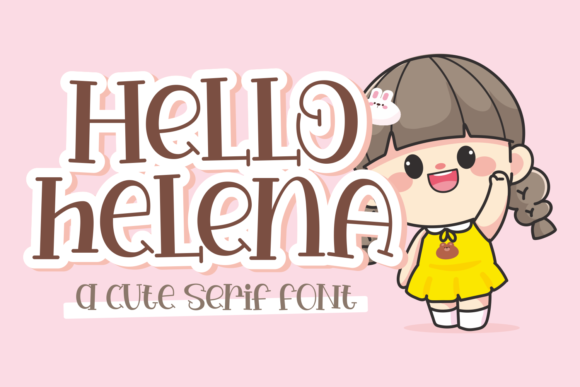
Welcome to the world of Hello Helena, a remarkable serif font crafted by shineink.designlab. It's time to wave goodbye to ordinary fonts and embrace a playful, fun-loving typeface that will infuse your creative projects with infectious positivity.
Imagine your book covers, storybooks, banners, advertising materials, and social media campaigns bursting with charm and personality. Hello Helena is not just a font; it's an invitation to let your creativity run wild and craft designs that resonate with your audience.
See the smiles bloom on readers' faces as they dive into stories brought to life by Hello Helena's captivating letterforms. Experience the joy of creating social media posts that leap off the screen, demanding attention with their playful charm. Embrace the power of advertising materials that leave a lasting impression, etching your brand into the minds of potential customers.
Hello Helena is more than just a font; it's a gateway to a world of endless creative possibilities. Unleash your imagination and let Hello Helena guide you on a typographic adventure where every word dances with delight.